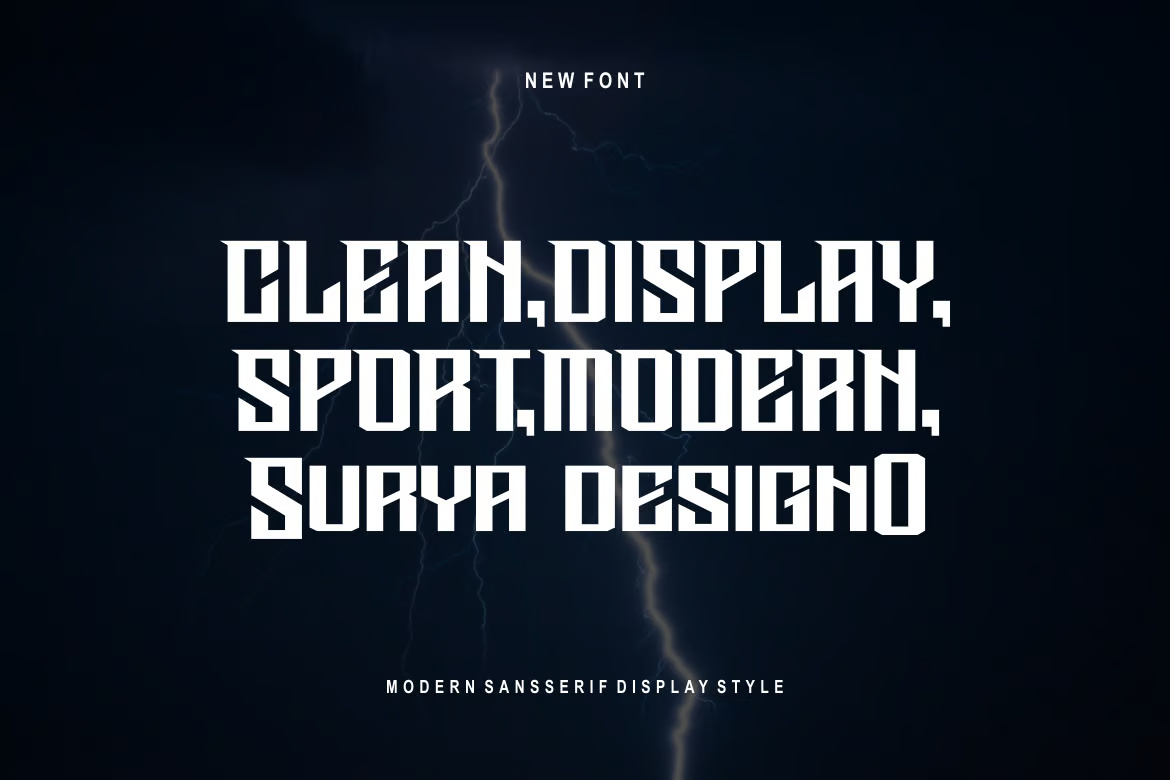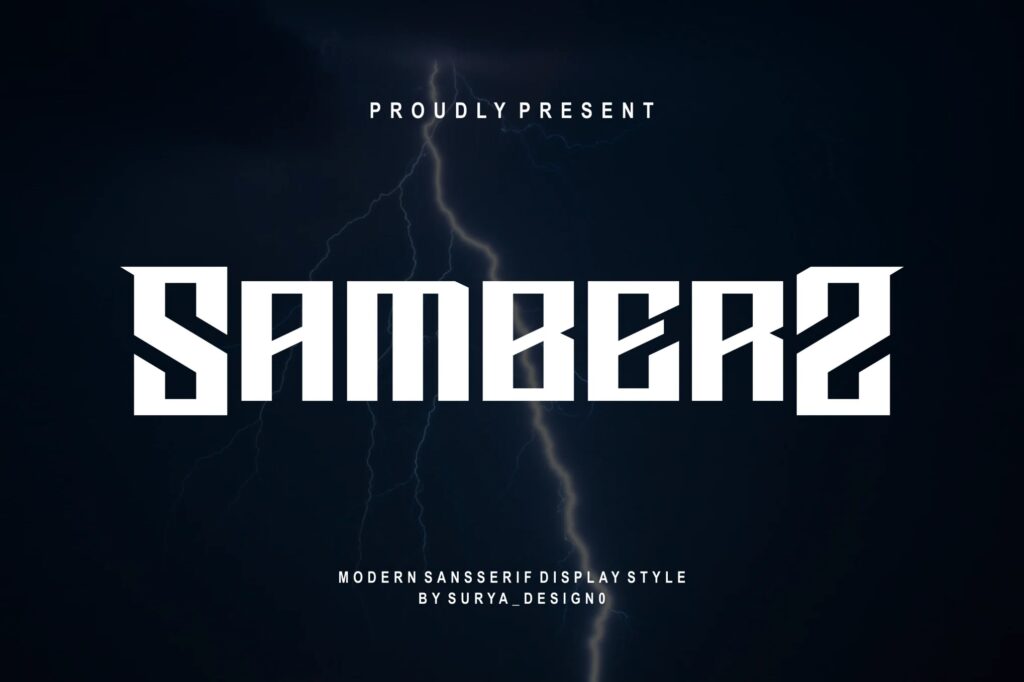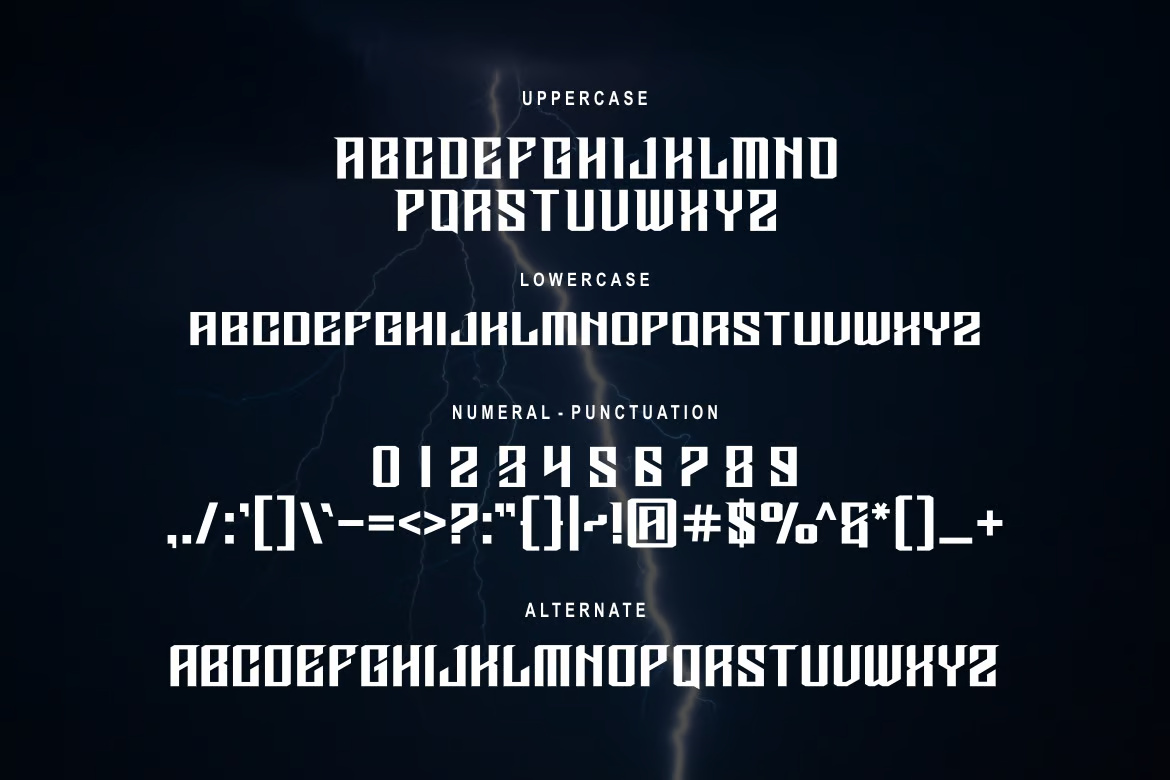
Samberz Display Font
Samberz is a bold and authentic modern display font that exudes strength and personality. Its sharp edges and confident style make it the perfect choice for a variety of creative projects. Whether you’re designing a striking logo, customizing apparel like t-shirts, crafting esports graphics, or adding flair to bold branding materials, Samberz stands out in any context with its dynamic presence. It adds a contemporary edge that draws attention and leaves a lasting impression.
Samberz Display Sans-Serif Font